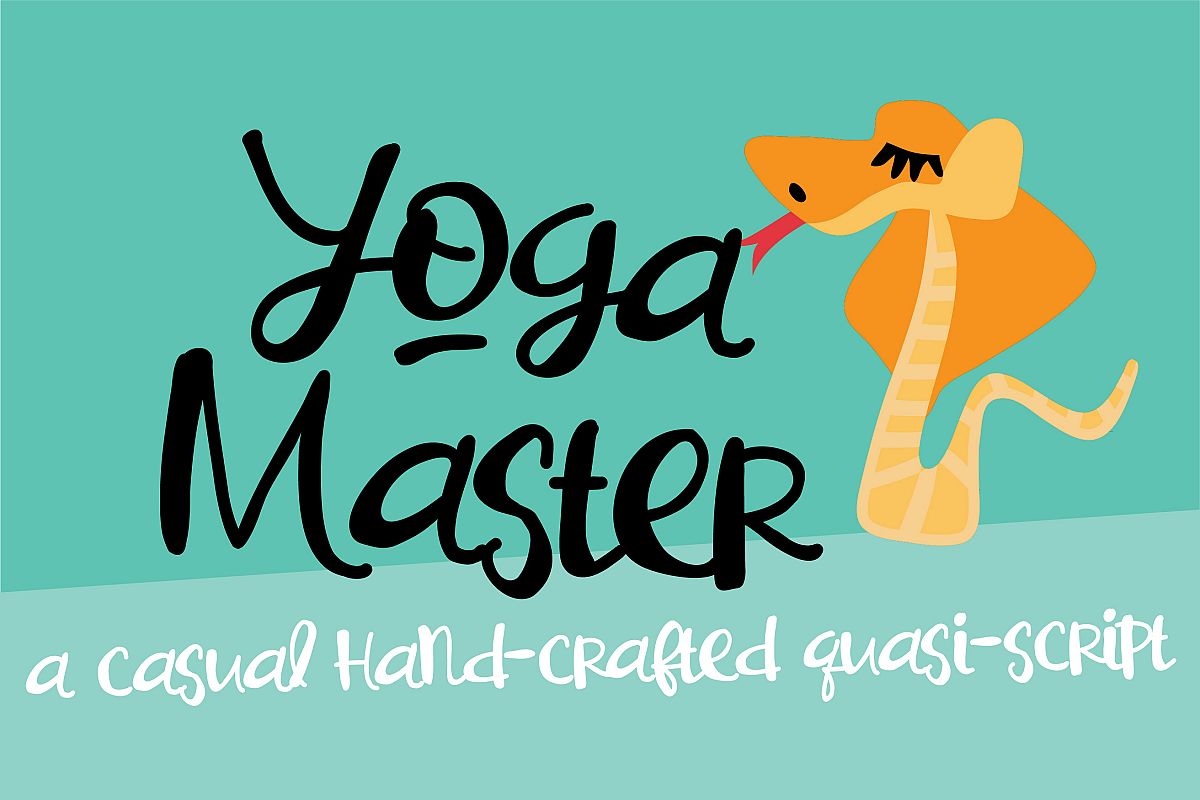
PN Yoga Master
This hand-crafted, casual font is what we like to call a quasi-script...part script, part print. This fun font packs a few extra details to keep things interesting.